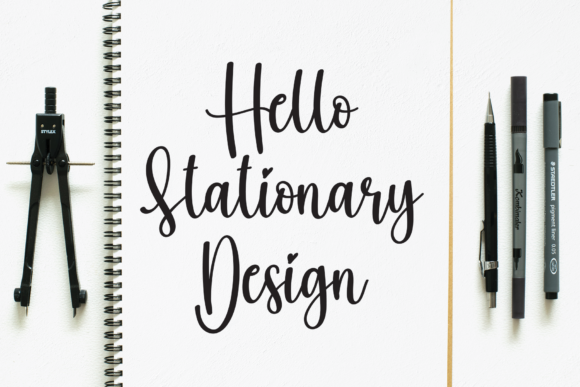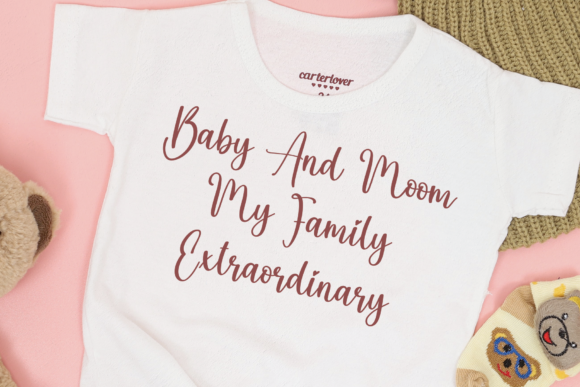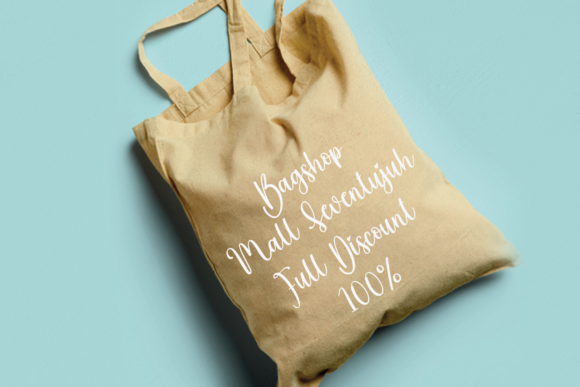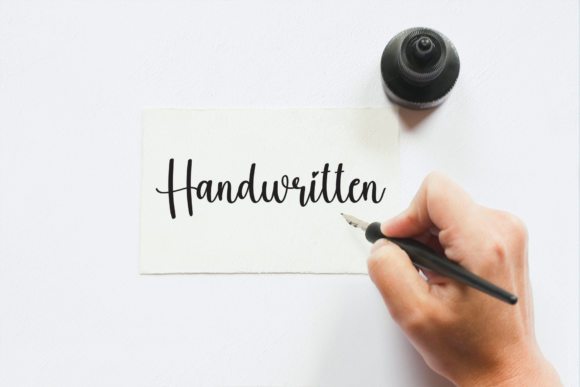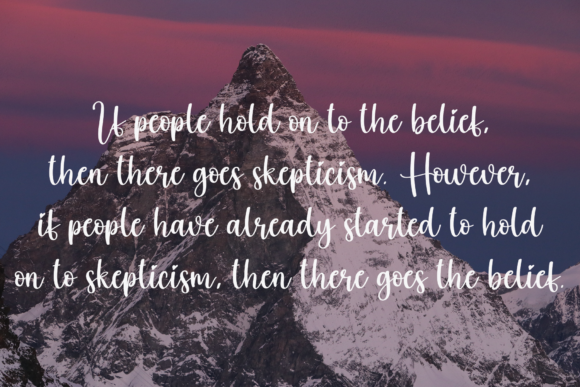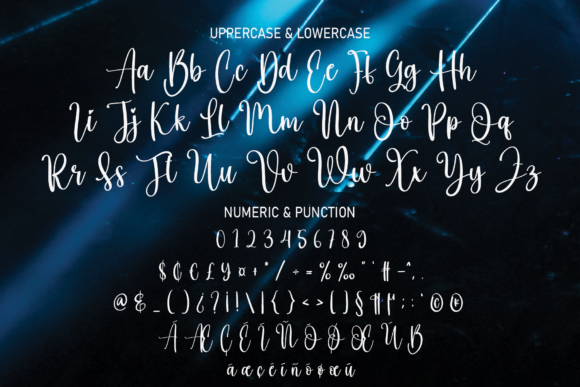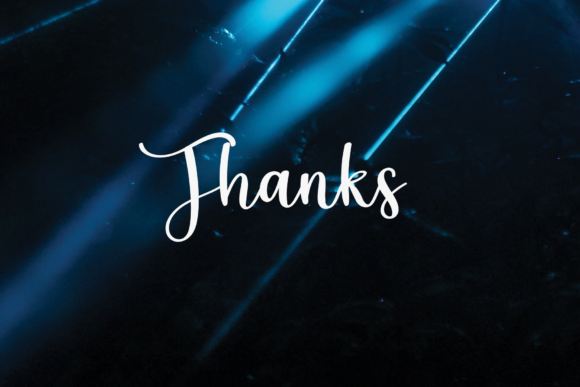
Laserblue Font
About Laserblue Font
Laserblue is a font that encapsulates a delightful blend of sweetness and fashion-forward flair. With its unique script style, Laserblue injects a sense of vibrancy and trendiness into a wide range of design applications.
Imagine Laserblue gracing the logo of a contemporary fashion brand. Its fashionable script lends a sense of modern sophistication, making the brand instantly appealing to stylish and trend-conscious consumers. Whether it’s on clothing labels, shopping bags, or storefront signage, Laserblue’s chic and fashionable demeanor elevates the brand’s image and sets it apart.
For t-shirt printing, Laserblue’s sweet yet bold script adds a playful and eye-catching element to graphics. Whether it’s a catchy slogan, an intricate illustration, or a captivating design, this font contributes to a striking visual impact. Its flowing strokes and distinctive letterforms create a captivating look that resonates with individuals seeking unique and stylish apparel.
In the realm of creative products, Laserblue transforms ordinary items into stylish works of art. Imagine the font adorning packaging for gourmet treats, artisanal crafts, or contemporary home goods. Its fashionable script instantly communicates a sense of quality and aesthetics, appealing to consumers who appreciate both design and functionality.
For branding projects, Laserblue becomes a signature element that represents the essence of the brand. Whether it’s a café, a beauty line, or a lifestyle blog, Laserblue’s sweet and fashionable script infuses a sense of personality and allure into various touchpoints. The font’s versatility ensures that it harmonizes seamlessly with the brand’s identity, reinforcing its image and making it memorable.
Laserblue’s ability to adapt to diverse contexts is a testament to its versatility. Its sweet and fashionable script style adds a touch of charm and contemporary elegance to any design it graces. The font’s distinctive letterforms and graceful lines capture attention and evoke positive emotions, making it an ideal choice for projects that aim to leave a lasting impression.
In essence, Laserblue is more than just a font; it’s a design asset that enhances the overall visual impact of your creations. Its sweet and fashionable script style brings a sense of creativity and flair, ensuring that your designs stand out and resonate with your target audience.
Whether you’re working on a logo, t-shirt design, creative product, or branding project, let Laserblue be your font of choice. Its unique blend of sweetness and fashion-forwardness will add a touch of allure and excitement to your designs, making them truly exceptional in every aspect.